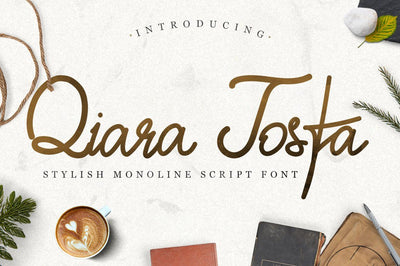
Qiara Tosfa
Introducing Qiara Tosfa – A Beautiful Handwritten Font. Made with naturally handwritten and modern style, it brings beautiful and modern typeface.
Qiara Tosfa font would be perfect for logos & branding, photography, watermark, social media posts, advertisements, invitation, product designs, label, stationery, wedding designs, product packaging, special events or anything that need handwriting taste.
- Upper + Lowercase Letters
- Numbers + Punctuation
- Beautiful Ligature
- Multilingual support